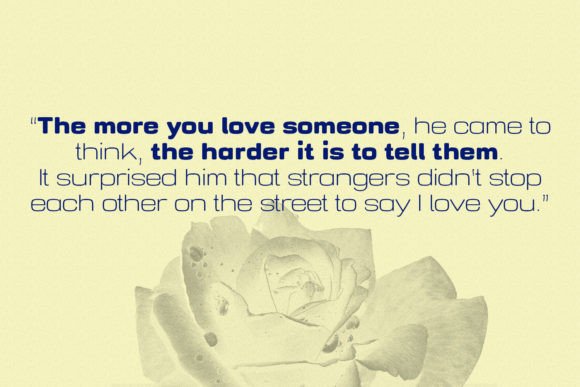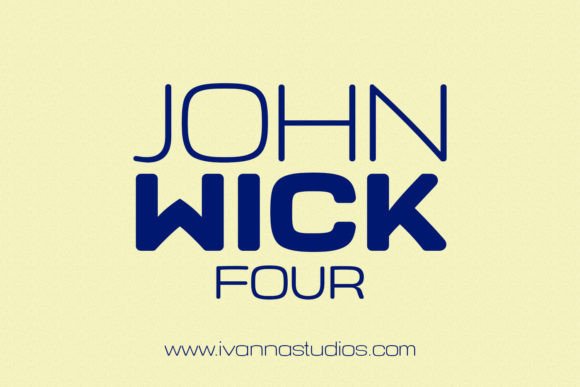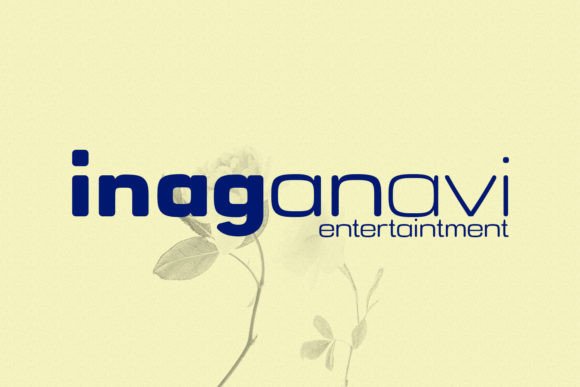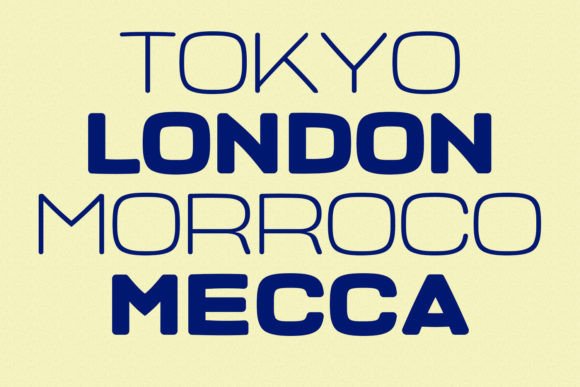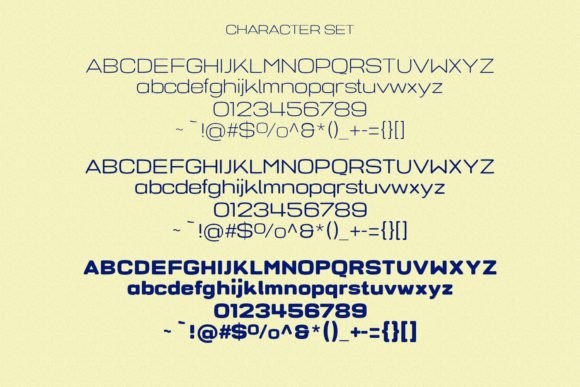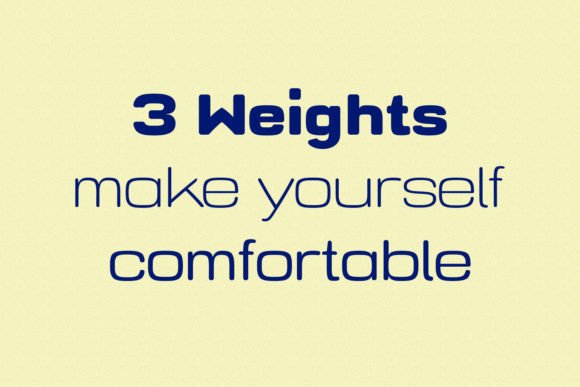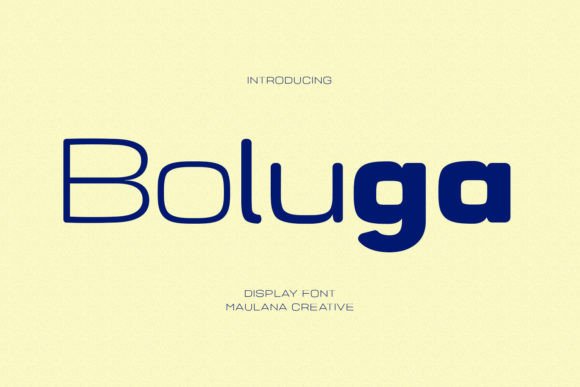
Introducing Boluga Font: A Modern Twist on Eurostile History
In the world of typography, fonts play a crucial role in conveying messages, expressing emotions, and creating visual identities. For designers, crafters, and typography enthusiasts, finding the perfect font can be a daunting task. However, if you’re looking for a versatile and stylish font that can elevate your designs, look no further than Boluga Font. Inspired by the classic Eurostile history Sans font, Boluga offers a fresh take on traditional typography with its unique blend of modernity and sophistication.
The Inspiration Behind Boluga Font
Boluga Font draws inspiration from Eurostile, a iconic sans-serif font known for its geometric and futuristic aesthetic. Eurostile has been a popular choice for designers and has been used in various contexts, from signage and branding to movie titles and book covers. Boluga Font takes this classic style and infuses it with a modern twist, adding a touch of playfulness and creativity to the traditional sans-serif design.
Key Features of Boluga Font
Boluga Font is a 3-weight style font, available in Light, Regular, and Bold strokes. This range of weights offers designers flexibility and versatility, allowing them to use the font in various contexts and applications. Some of the key features of Boluga Font include:
- Fun Character Set: Boluga Font features a fun and playful character set, perfect for designs that require a touch of personality and whimsy.
- Ligatures and Alternates: The font includes ligatures and alternates, which allow designers to add a creative touch to their designs and make them stand out.
- Multipurpose: Boluga Font is suitable for a wide range of applications, from logo design and social media graphics to movie titles, book covers, and long text letters.
Use Cases for Boluga Font
Boluga Font is an incredibly versatile font that can be used in various design projects. Here are some use cases where Boluga Font shines:
- Logo Design: Boluga Font’s unique blend of modernity and playfulness makes it an excellent choice for logo design. The font’s geometric shapes and fun character set can help create memorable and engaging logos.
- Social Media Graphics: Boluga Font’s light, regular, and bold weights make it perfect for social media graphics, such as Facebook posts, Instagram stories, and Twitter headers.
- Movie Titles and Book Covers: The font’s classic sans-serif style and modern twist make it suitable for movie titles and book covers. Boluga Font can add a touch of sophistication and elegance to your designs.
- Long Text Letters: Boluga Font is also suitable for long text letters, making it an excellent choice for designers who need to create engaging and readable content.
Pairing Boluga Font with Other Fonts
Boluga Font can be paired with a variety of fonts to create stunning designs. Some font pairing suggestions include:
- Script Fonts: Pair Boluga Font with a script font to create a beautiful contrast between the geometric sans-serif and the flowing script.
- Serif Fonts: Combine Boluga Font with a serif font to add a touch of sophistication and elegance to your designs.
In conclusion, Boluga Font is a versatile and stylish font that can elevate your designs and add a touch of modernity and sophistication. With its unique blend of geometric shapes, fun character set, and ligatures, Boluga Font is perfect for designers, crafters, and typography enthusiasts looking to create stunning works. Whether you’re designing a logo, social media graphics, movie titles, or book covers, Boluga Font is an excellent choice. So, make a stunning work with Boluga Font and take your designs to the next level!